dot-font: Expressive Typography
Learn about the practice of using the physical shapes of letters to create new meanings
Letters are not just abstract notions, carriers of meaning; they are also real, physical shapes. Paying attention to those shapes, and using them as a visual element in graphic design, is an essential part of the art of typography.
This is sometimes called “expressive typography,” and it has been practiced by designers as diverse as Herb Lubalin in New York and Massin in France. There is no single style associated with this approach to type; it’s a matter of seeing the graphic elements on the page, including the letterforms, and arranging them in a way that seems natural, in fact inevitable, once it’s done (see Figure 1).
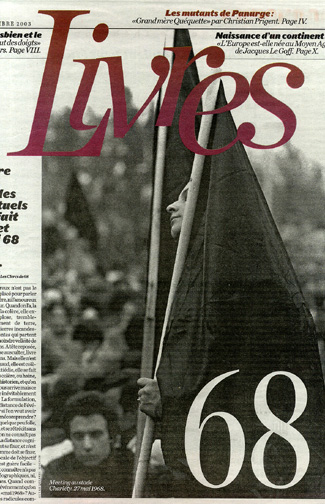
Figure 1: From a recent page in the French newspaper “Libération,” the opening of an article about the books of May 1968.
Sometimes the size and shape of the letters have a direct bearing on the meaning of the words, as in this illustration from the first of Carl Dair’s little booklets on type for Westvaco, in the 1970s (see Figure 2). Dair showed what he was talking about in the very letterforms that he chose, and in how he arranged them together.
Figure 2: The letterforms that describe themselves, from one of Carl Dair’s “Typographic Quest” booklets.
In general, I’m not talking about visual puns, which can get out of hand unless they’re used with extreme restraint, but occasionally you can find the perfect congruence between the meaning and the type itself. Jost Hochuli used a simple fi ligature, and the Italian forms of the names of France and Italy (“Francia” and “Italia”), to create this meaningful image of unity and integration between two countries (see Figure 3).
Figure 3: Linking the names of France and Italy, and the first letters of their names, in a ligature and a word play; from Jost Hochuli’s “Alphabugs.”
Sometimes letters get used as visual elements with only allusions to their meaning; this becomes more a matter of collage than of typography. But it’s not always easy to draw the line. A Neiman Marcus ad in “The New York Times” last week uses type in a visually arresting way, though it’s perhaps only peripherally typographical (see Figure 4).
Figure 4: An ad from “The New York Times”: type as almost pure texture.
Of course, you can leave typography behind entirely and use letters as the building blocks of art. Jack Stauffacher, who spends most of his time perfecting the craft of printing and designing books meant to be read, has created several portfolios of art prints using huge wooden letters, some of them broken, and the hand techniques of letterpress printing (see Figure 5). This is no longer typography, but it’s beautiful.
Figure 5: Pure art, not typography, using wood type: a letterpress print by Jack Stauffacher.
You can use striking contrasts of size and style and position of type to grab someone’s attention in order to impart a message. By making the image visually rewarding, you invite a potential reader in and present your message in an entertaining way. You can entice that person to read the fine print by making something large and dramatic—as long as the drama doesn’t come at the expense of the meaning. I used contrast and strong letter shapes to do this in a simple hand-out card for the online science-fiction magazine, “The Infinite Matrix” (see Figure 6).
Figure 6: This one-color 3-x-5-inch card was a handout meant to be distributed to people at a large convention—something to stick in the pocket and take home.
Dramatic display typography is often used today in newspapers—especially in features pages. Newspaper designer Lucie Lacava brought highly unusual and effective use of type to her redesign of the Montreal daily “Le Devoir,” a paper well known for its role in the intellectual life of Québec. This detail from the first page of the arts section (“Les Arts”) mixes type in visually arresting ways, drawing the reader in to the story below (see Figure 7).
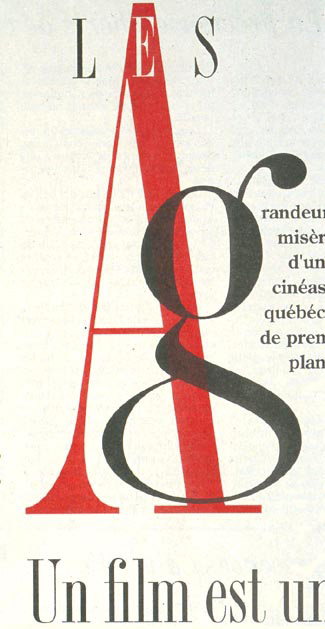
Figure 7: Detail from an arts page of the French-language Québec newspaper “Le Devoir,” designed by Lucie Lacava.
These images are just suggestions, reminders of what’s possible and keys to opening up our visual vocabulary. Typography doesn’t have to be staid. It does, however, have to be functional; playing with the type without regard for the meaning of the words, or the purpose of the message that needs to be communicated, is just self-indulgence. Typography—whether it’s the most straightforward text or the wildest display—is a seamless melding of the verbal and the visual. It needs to be practiced mindfully, creatively, and respectfully. And often.